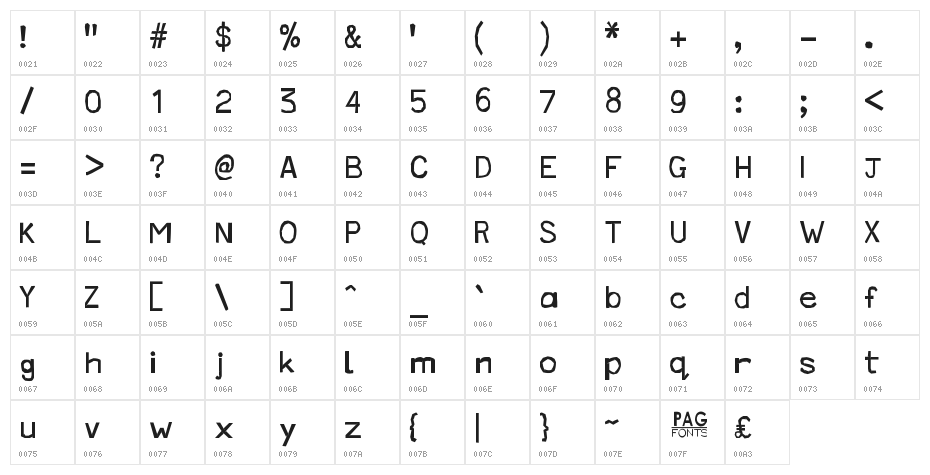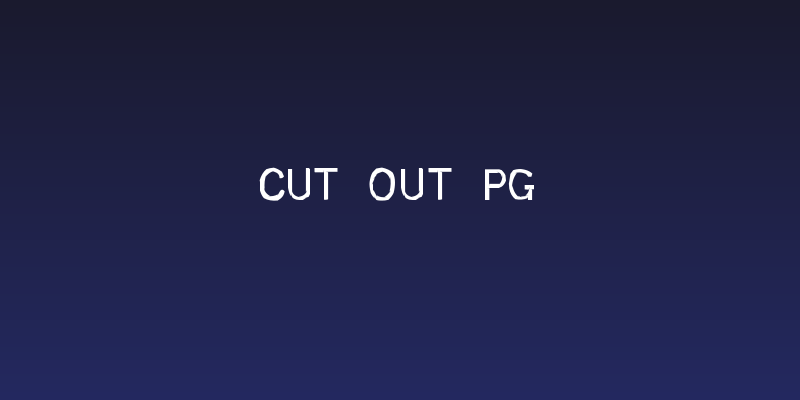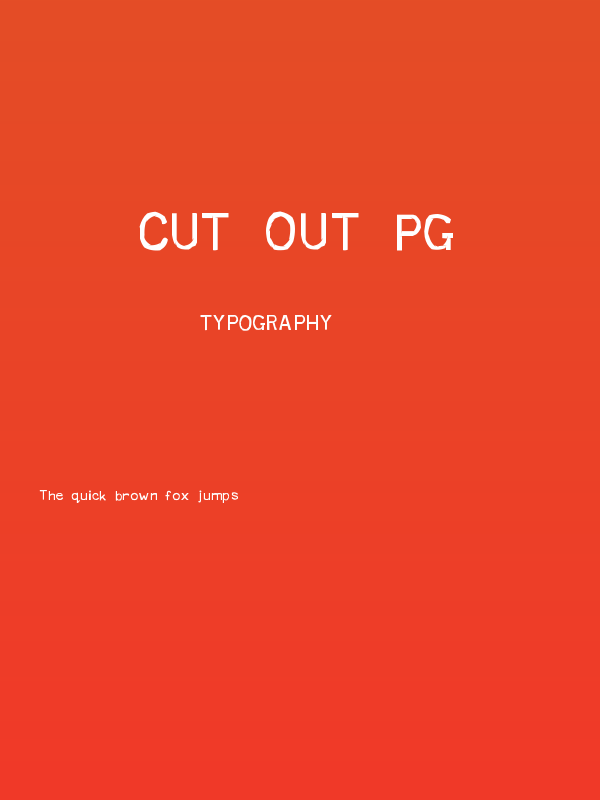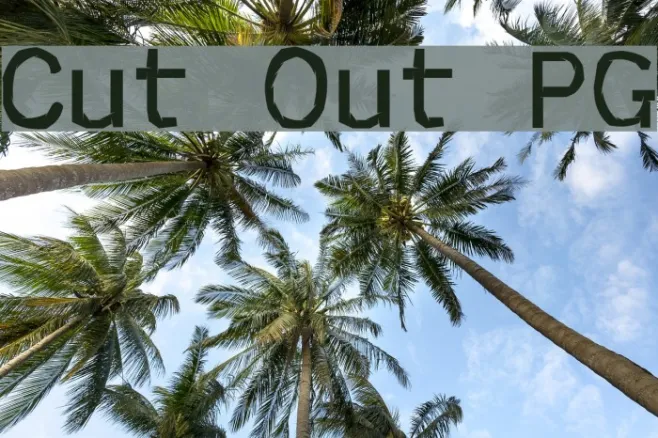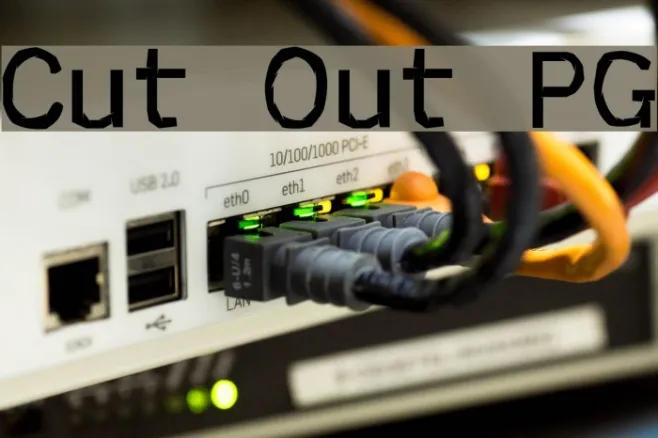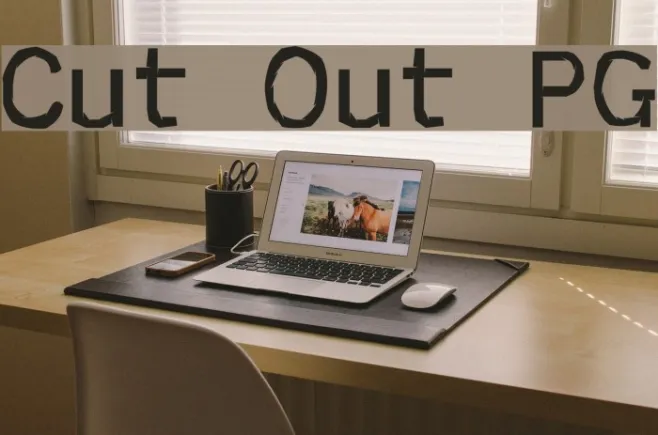
Cut Out PG Font
Cut Out PG Description
This font features a distinctive cut-out style, giving it a handcrafted and artistic appearance. The characters have a slightly irregular edge, reminiscent of paper cut-outs, which adds a unique and playful touch. The uppercase and lowercase letters maintain a consistent height, while the numbers and special characters follow the same design principle, ensuring uniformity across all glyphs. The font's bold strokes and geometric shapes make it stand out, ideal for creative projects that require a touch of whimsy and originality.
| Proposed Projects | Ideal for posters, children's books, creative branding, and DIY-themed projects. |